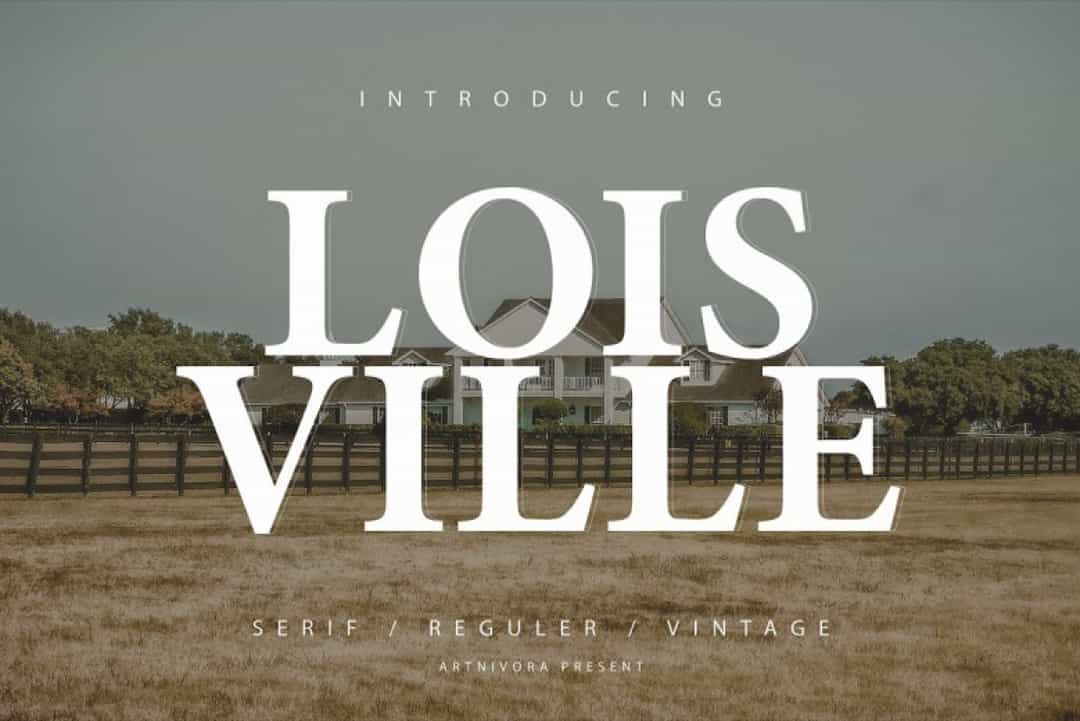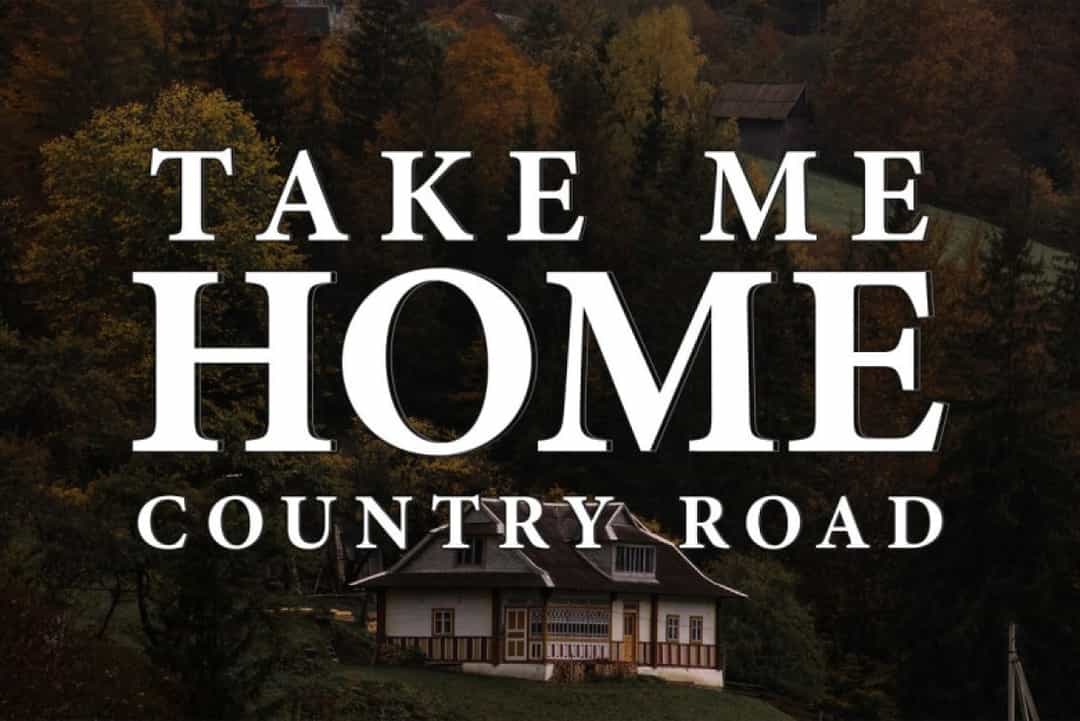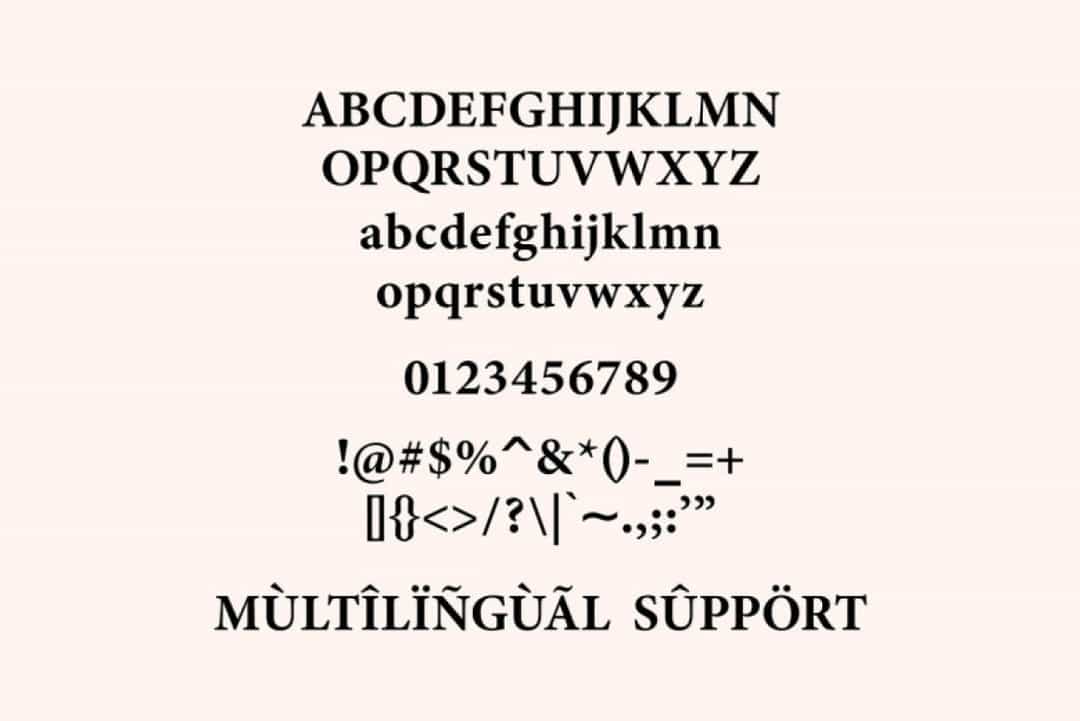
Lois Ville Font exudes classic charm with its classic-style display serif, adding timeless elegance to labels, invitations, or headlines created using it. Lois Ville’s sophisticated yet simple design gives off a nostalgic charm reminiscent of earlier times.